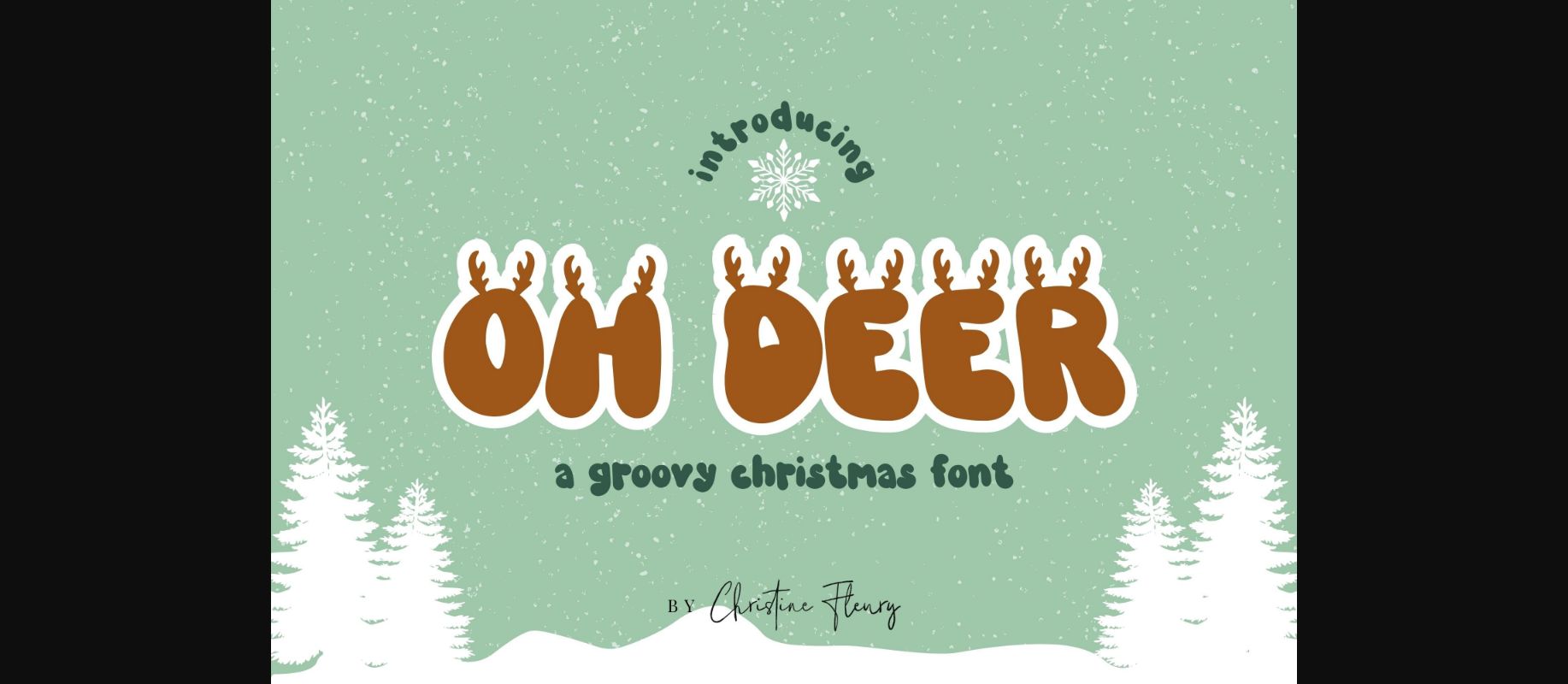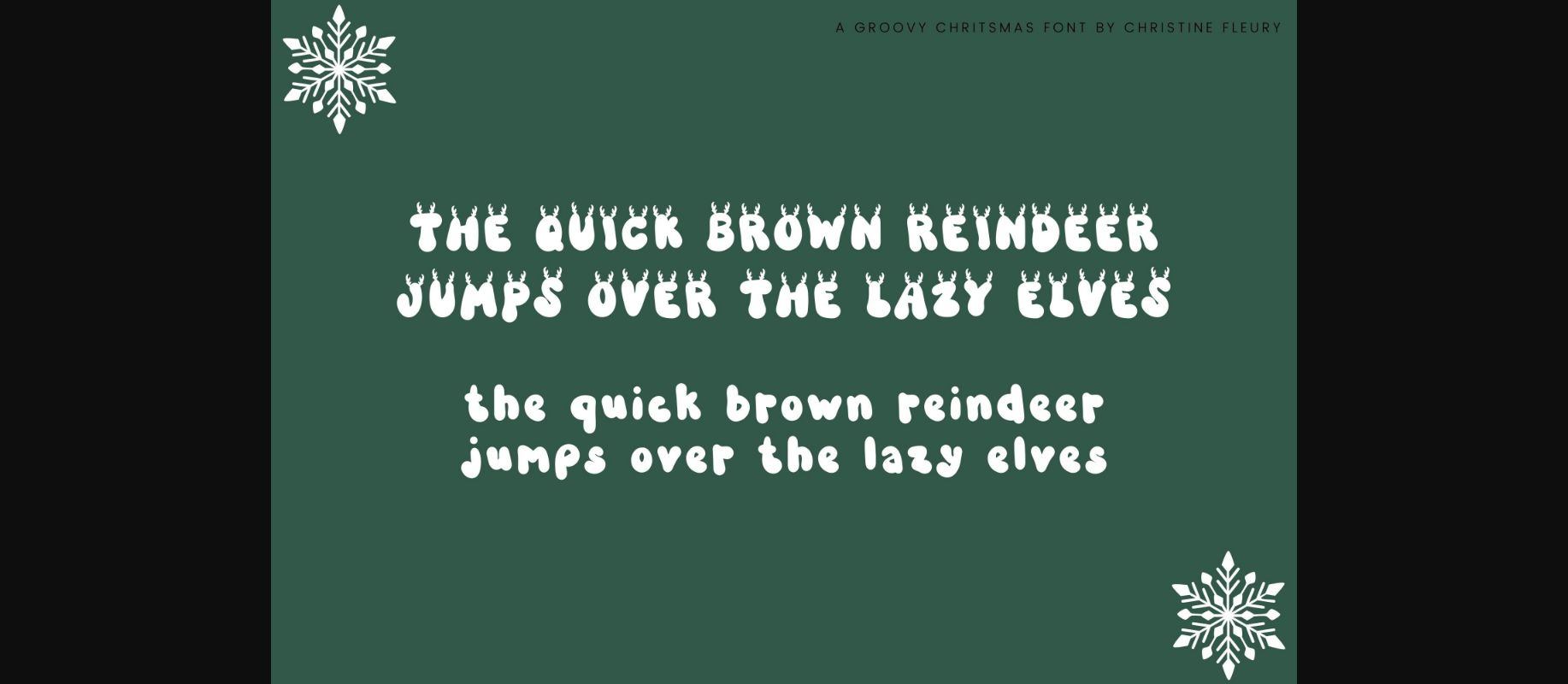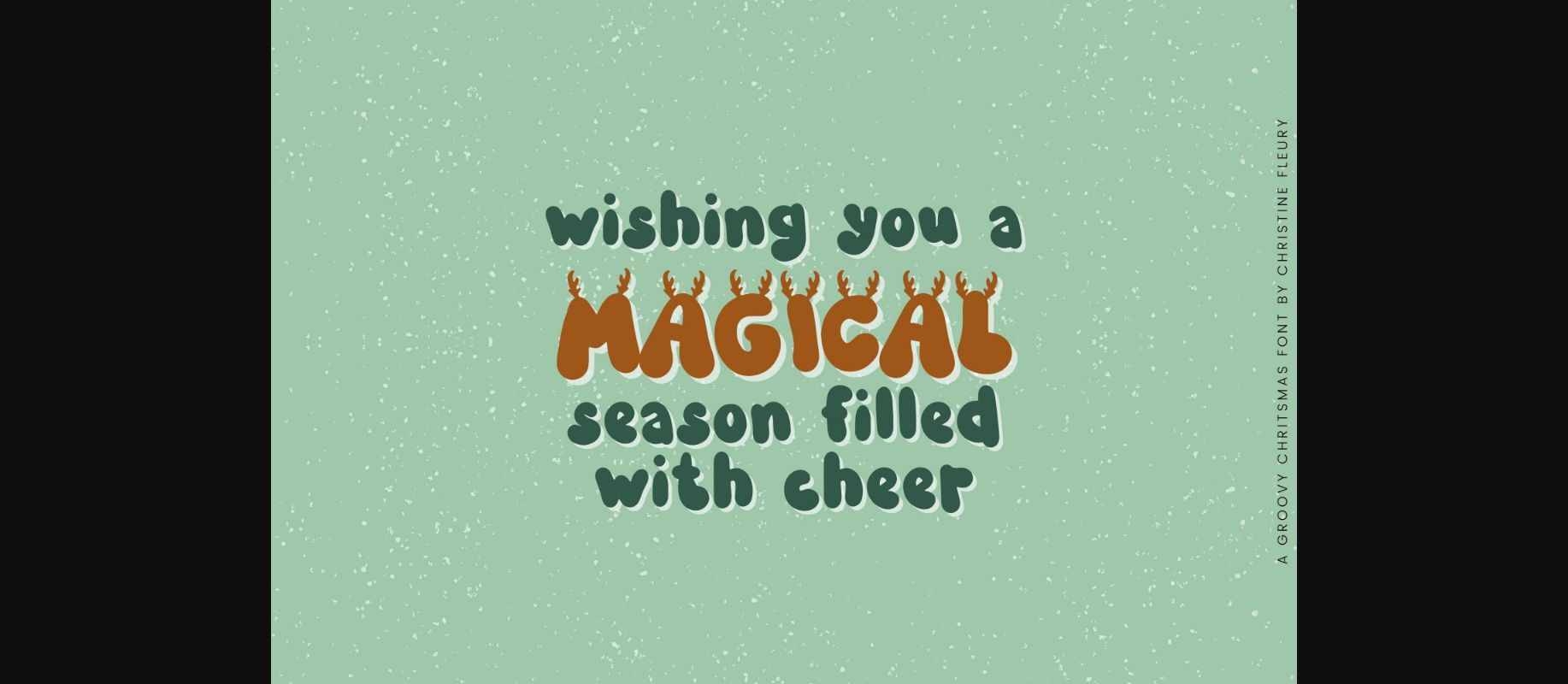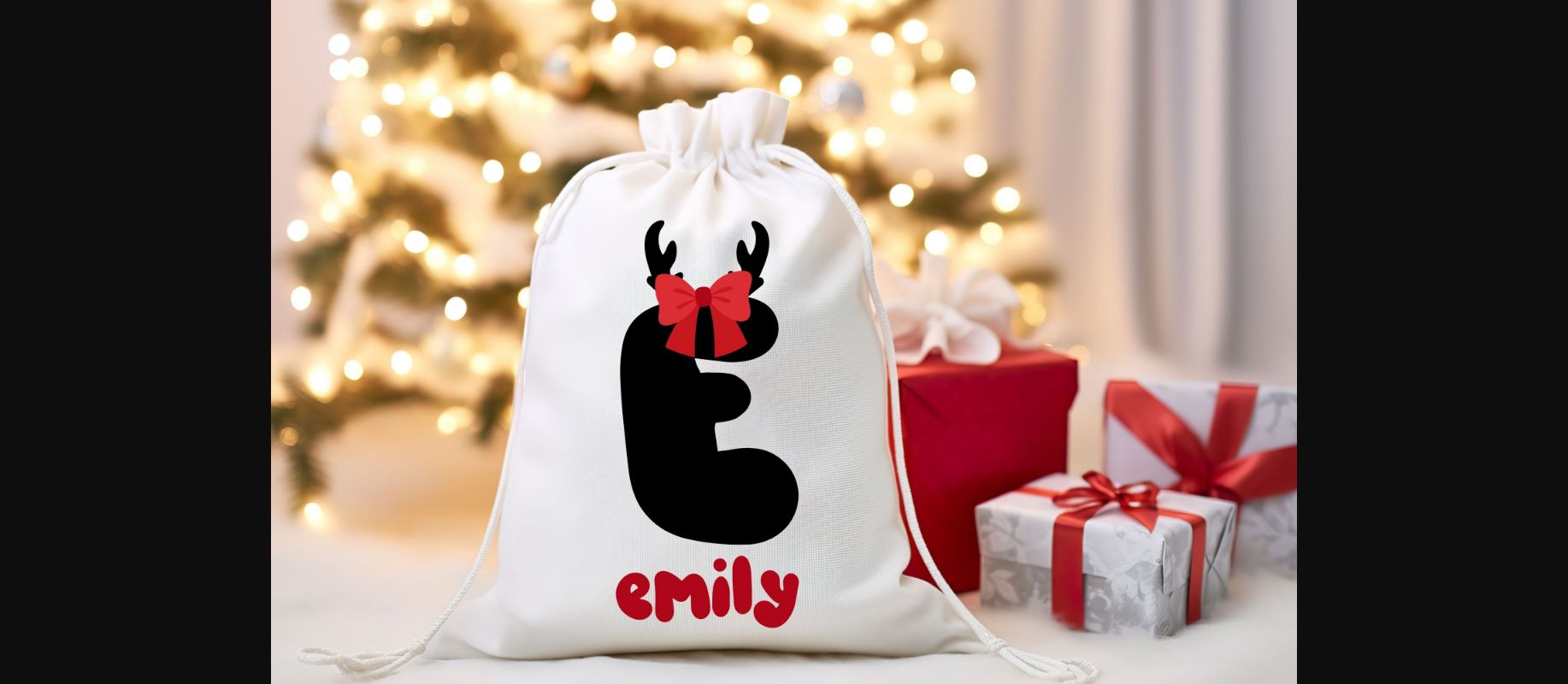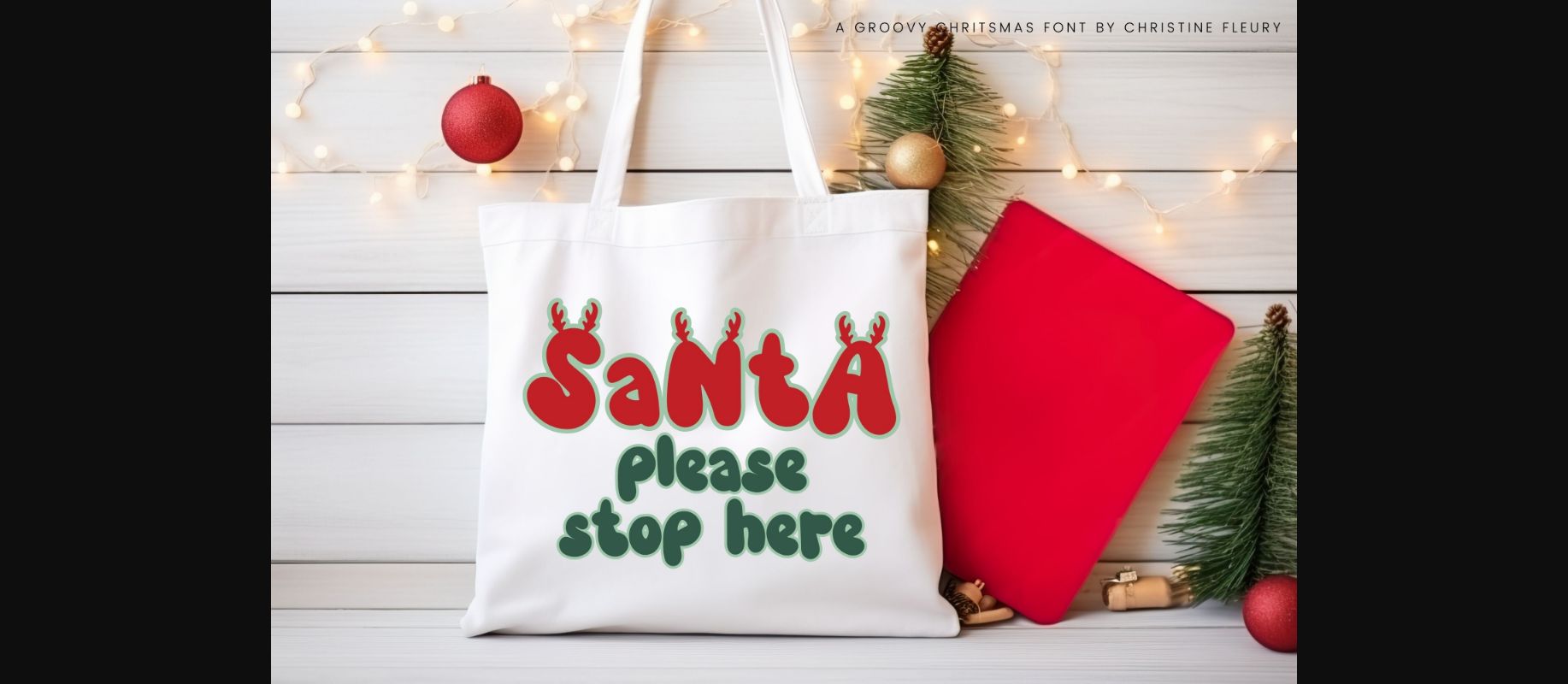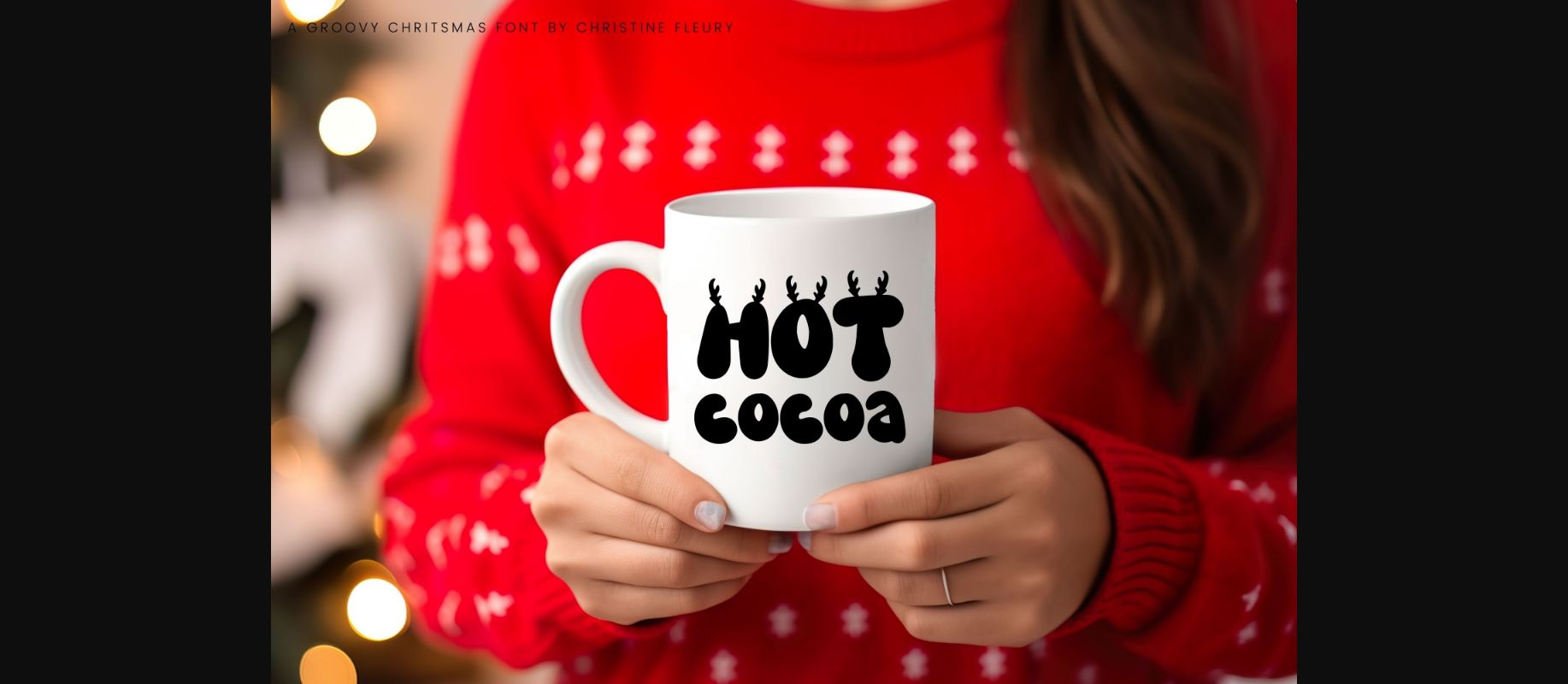
About Oh Deer Font
Introducing Oh Deer a groovy Christmas font. Step into a winter wonderland with Oh Deer Font – where Uppercase letters are adorned with the spirit of the season. Happy holidays! ?. Perfect for Sublimation, SVGs, Crafts, logos, Cards, Quotes, Branding, Ornaments, Mugs, prints, and more!